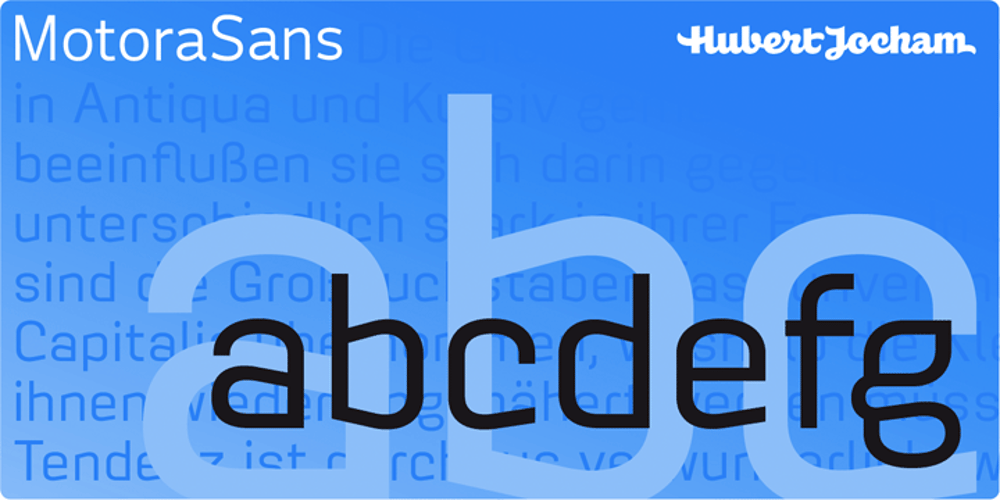
Motora Sans Font Family was designed by published by Hubert Jocham Type. Motora Sans contains 18 styles and family package options. Many of my typefaces like Narziss and Mommie and also NewLibris or Verse are rather feminine. With Motora Sans I wanted to be the opposite. Masculine with a smell of gasoline and sweat. Technical and angular. Strong and self-confident. The weights are laid out in the usual way I create my families. 9 weights up to a strong UltraBold, all with italics. What was the inspiration for designing the font? A typeface you would long for in a men’s magazine. What are its main characteristics and features? Legible constructed sans serif with German industrial and heritage. Usage recommendations: Corporate branding and magazines and other publications.